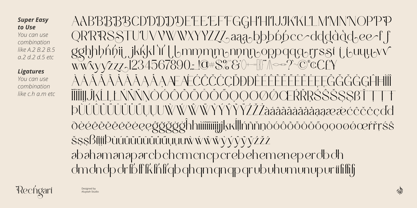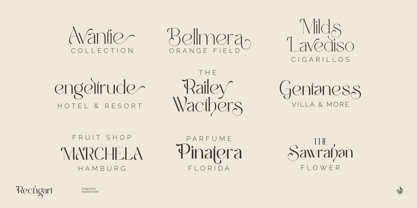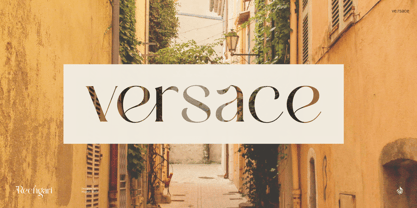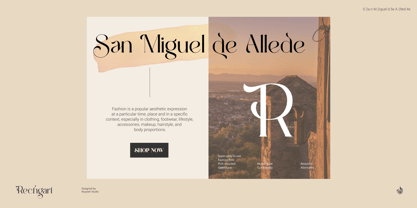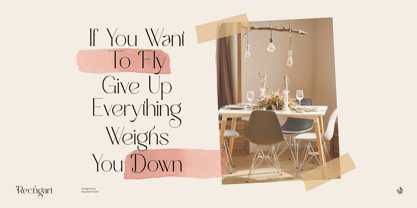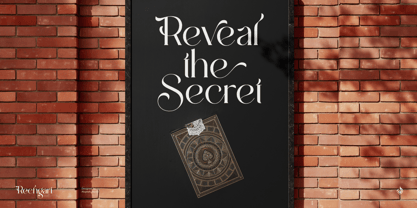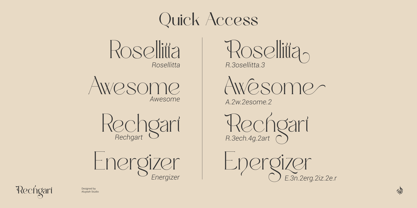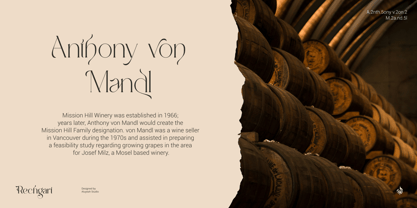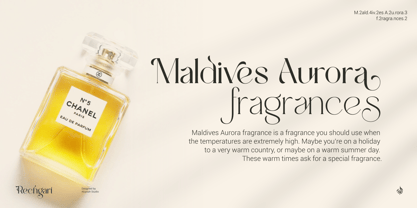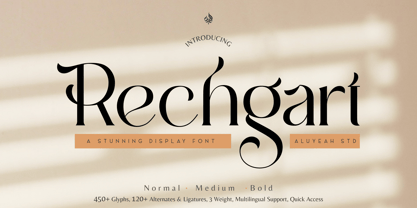
Al Rechgart
by Aluyeah Studio
The Al Rechgart Font Family was designed by Linggar Sundoro and published by Aluyeah Studio. Al Rechgart contains 3 styles and family package options. More about this family
Introducing Rechgart, a stunning display font inspired by the exquisite beauty of bird's feathers. With 120 and more alternates and ligatures, this font offers endless possibilities for your designs. Available in 3 weights with quick access to alternate characters, you can quickly and easily find the perfect match for your project. It will surely add an authentic, beauty, magnificent, unique touch to any design!
Super Easy to Use alternates - You can easily call alternates using quick access combination like B.2 B.5 d.2 d.5 a.m e.r etc. To get results like the preview, in the design software you use, select this font then just write R.3ech.4g.2art